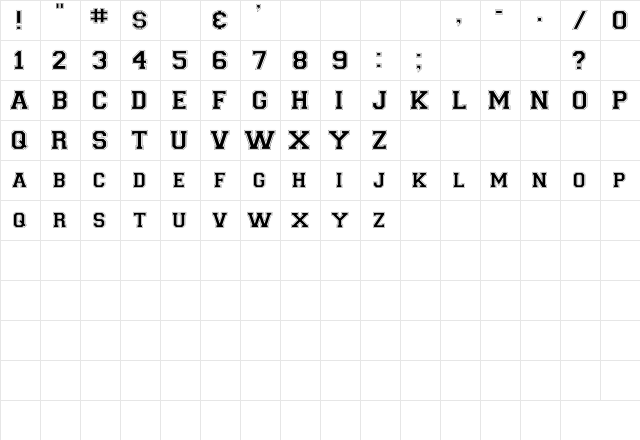
Applegater-Normal Regular Free Font
Applegater-Normal Regular
Design Context for Applegater-Normal
Applegater-Normal is a composed and adaptable typeface that performs quietly and consistently across a wide range of design contexts.
Pro Tip: Use Applegater-Normal in both headline and body roles to test its range before committing to a single application.